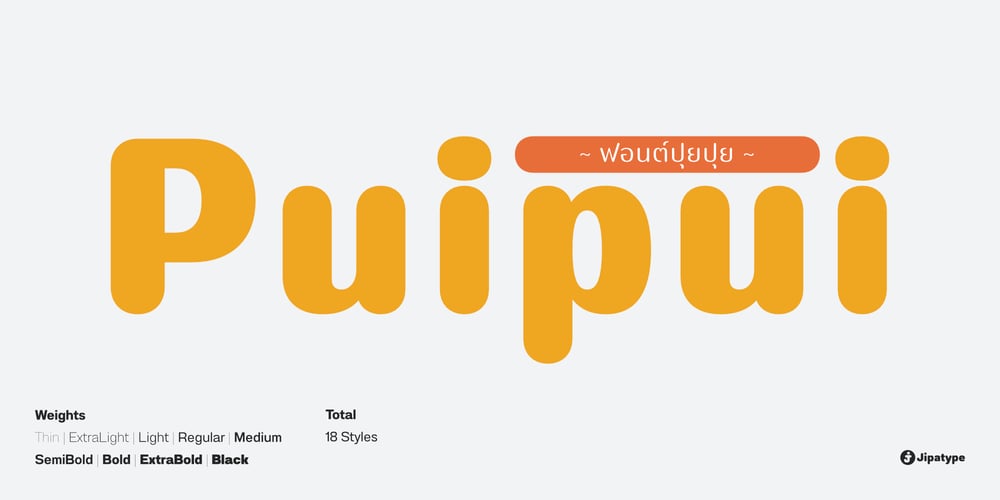
Puipui Font Family was designed by Anupap Jaichumnan and published by Jipatype. Puipui contains 18 styles and family package options. Puipui is a sans serif typeface with a rounded, contrast stroke and minimal look. Comes with 9 weights and italics of each weight total 18 styles. Support multi-languages and Thai language. Suitable for Headline or text body. Puipui can help you to create a mood and tone of cuteness suitable for kid, pet, food product or anything about cuteness content.